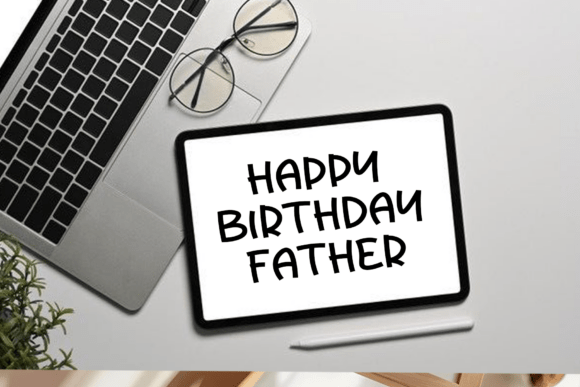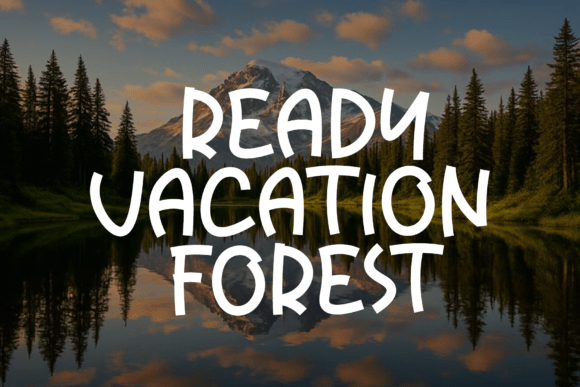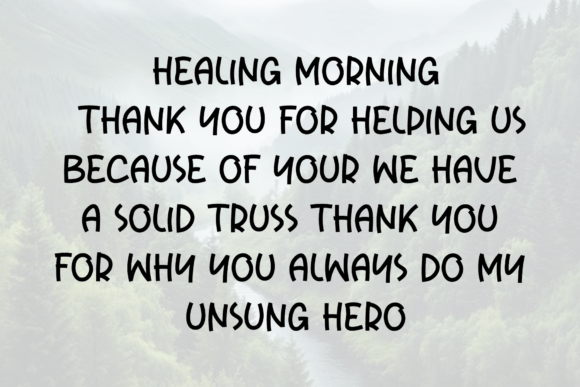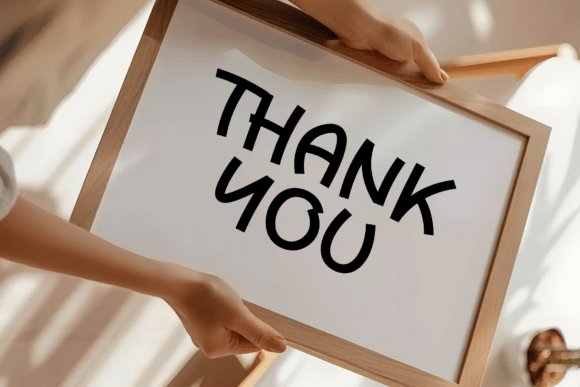
The Power of Energy Healing Font: A Designer’s Best Friend
I’ll never forget the time I was working on a wellness branding project for a new yoga studio. I had spent hours agonizing over the perfect color palette and logo design, but something was still missing. As I scrolled through font after font, I just couldn’t find the right fit. That was until I stumbled upon Energy Healing Font. ✨ It was like a breath of fresh air – the perfect blend of confidence and approachability that instantly elevated my design.
- ✨ **Friendly and energetic vibe**: Energy Healing Font has a way of making your text feel approachable and positive.
- ✅ **Perfect for wellness branding**: The soft, organic flow and rounded terminals make it an excellent choice for any wellness or lifestyle brand.
- 💡 **OpenType features**: The font comes with a range of OpenType features, including stylistic alternates and glyphs, that allow for endless creativity.
- 🤔 **Limited use in formal contexts**: While Energy Healing Font is amazing for creative projects, it may not be the best fit for more formal or corporate designs.
- ⚠️ **Some characters may be a bit quirky**: As with any font, some characters may not work perfectly in every context – but this is a minor trade-off for the font’s unique personality.
The Story Behind Energy Healing Font
Energy Healing Font was designed with the intention of creating a friendly, approachable typeface that would bring a sense of positivity and energy to any design. The designer, inspired by the world of wellness and self-care, aimed to create a font that would feel both confident and organic. The result is a font that’s perfect for any project that needs a little extra warmth and personality.
Q: What makes Energy Healing Font unique?
A: Energy Healing Font’s unique blend of thick, confident strokes and soft, organic flow sets it apart from other fonts.